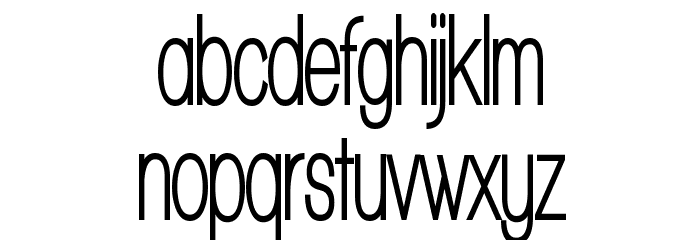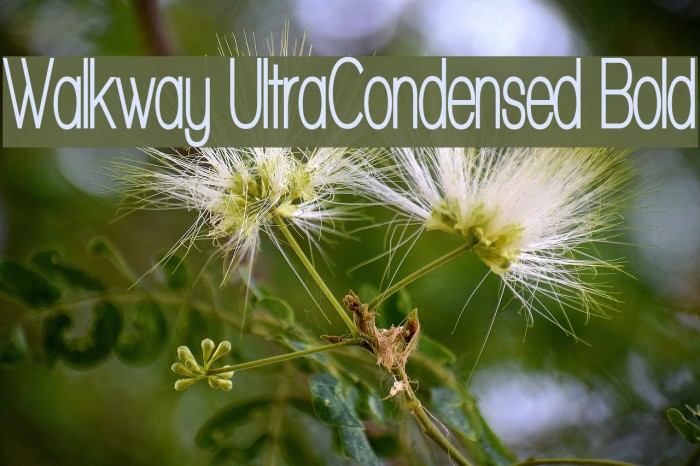
Walkway UltraCondensed Bold Font
This font features an ultra-condensed style with bold strokes, creating a striking and modern appearance. The characters are tall and narrow, maximizing vertical space while maintaining readability. The uppercase and lowercase letters are consistent in width, providing a uniform look across the text. The numerals and special characters are designed to match the overall aesthetic, ensuring a cohesive visual presentation. Its clean lines and minimalistic design make it suitable for contemporary projects that require a strong visual impact.
A bold, ultra-condensed font with a modern and minimalistic style.
- Proposed Projects: Ideal for headlines, posters, branding, and any design requiring a bold, modern look.
- Category: Sans-Serif
- Width: Condensed
- Character Spacing: Tight